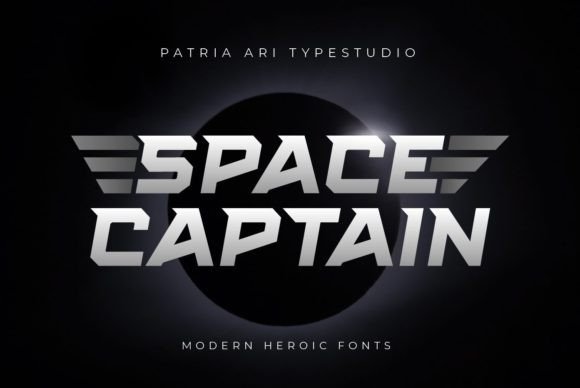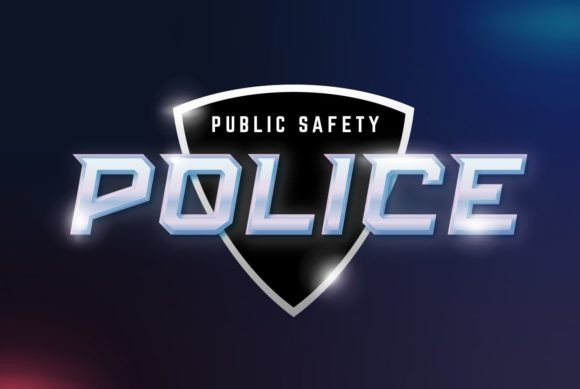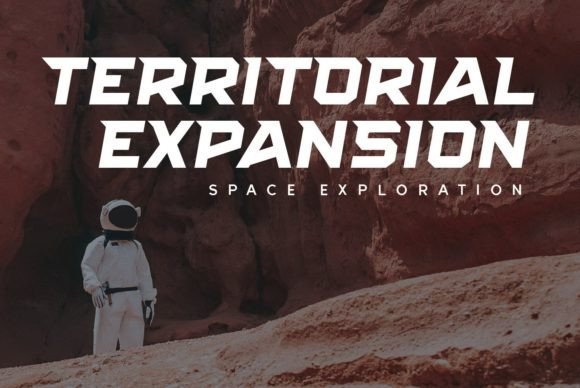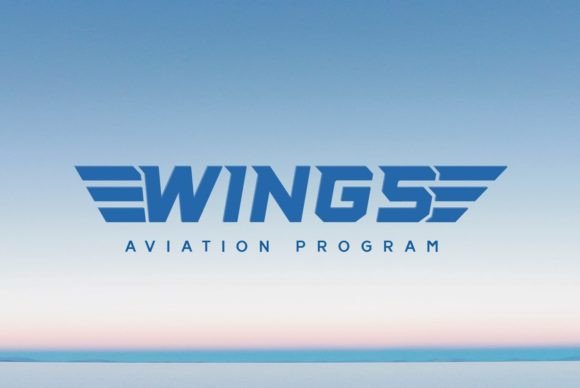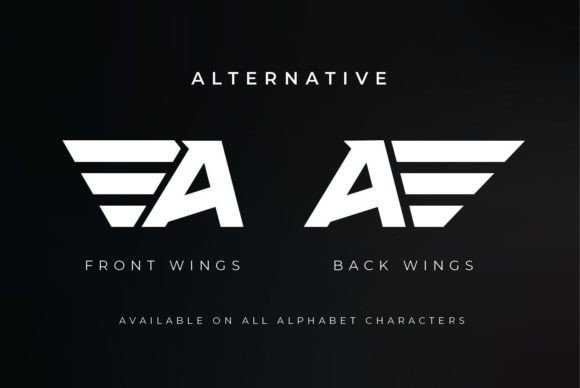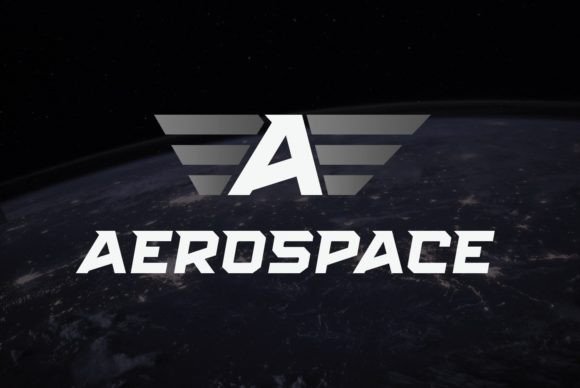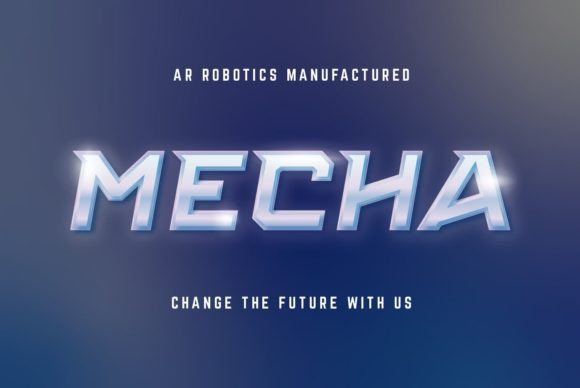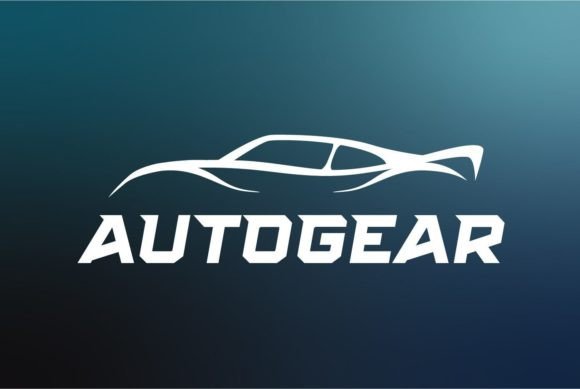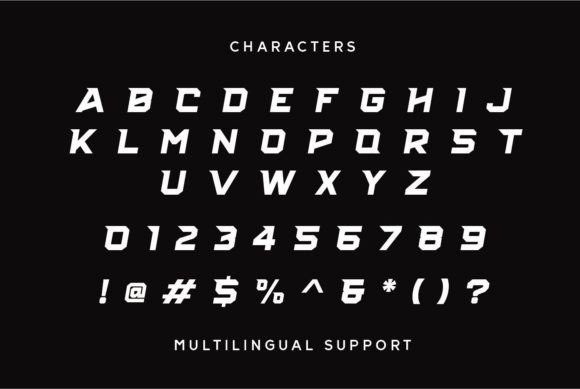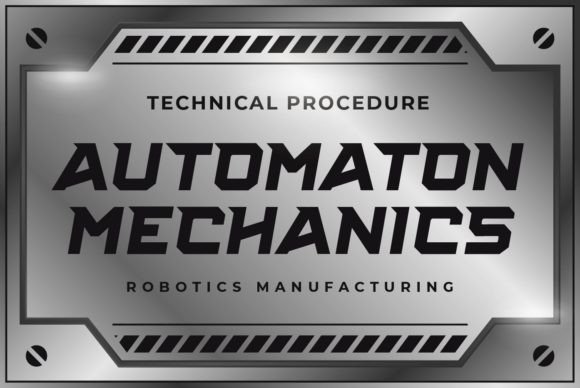
Space Captain
Space Captain: A Solemn and Modern Slab Serif Font
Space Captain is a solemn and modern slab serif font, perfect for crafty projects that need striking typography. This versatile font is ideal for branding projects, birthday cards, personal branding, sports logos, and more. With Space Captain, your designs are sure to stand out!
Key Features of Space Captain
• Solemn Design: Offers a serious and impactful look suitable for various applications.
• Modern Aesthetic: Brings a contemporary touch to design projects.
• Slab Serif Structure: Features distinctive serifs that add character and style.
• Versatile Application: Ideal for both print and digital media projects.
Ideal Uses for Space Captain
Space Captain’s unique characteristics make it particularly well-suited for:
When incorporating Space Captain into your designs, consider these tips:
• Use for headlines or short blocks of text to showcase its striking style.
• Utilize its solemn appearance to add gravitas to your designs.
Space Captain is an excellent choice for designers looking to add a solemn and modern slab serif font to their typographic toolkit. Its ability to create striking designs makes it stand out in the world of typography. Whether you’re working on branding projects, creating birthday cards, or developing sports logos, Space Captain offers the perfect blend of style and impact.
Furthermore, Space Captain’s unique design allows it to shine in various contexts. From serious corporate designs to more playful personal branding projects, this font can elevate your work. Its bold yet functional style works particularly well in designs that require a thoughtful and engaging mood.
In conclusion, Space Captain is a font that truly captures the essence of modern design and impact in typography. Its ability to work well in both minimalist projects and more elaborate layouts showcases its flexibility. For those looking to add a touch of solemnity to their work, Space Captain can enhance themed creations with its distinctive style. It’s the perfect choice for designers seeking to make a strong, stylish impact across a wide range of creative projects.